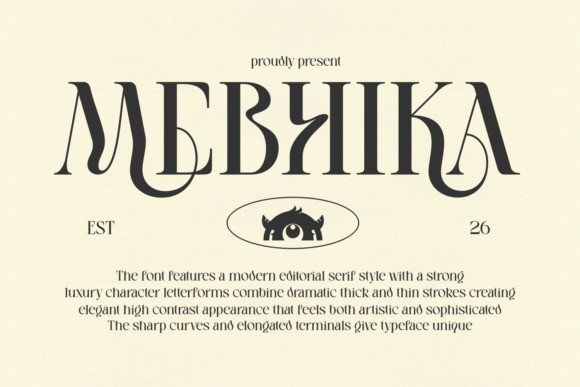
Mebhika Font
Mebhika Font is a sophisticated modern editorial serif typeface that blends luxury, artistry, and contemporary elegance. Defined by its dramatic contrast between thick and delicate strokes, MEBHIKA features distinctive elongated terminals, fluid curves, and expressive letterforms that create a striking visual presence. The typeface balances refinement with creativity, making it ideal for high-end branding, fashion editorials, luxury packaging, beauty products, boutique logos, and premium marketing materials. Its unique sculptural details and graceful proportions evoke a sense of exclusivity and timeless sophistication, allowing every word to feel bold, memorable, and effortlessly elegant.